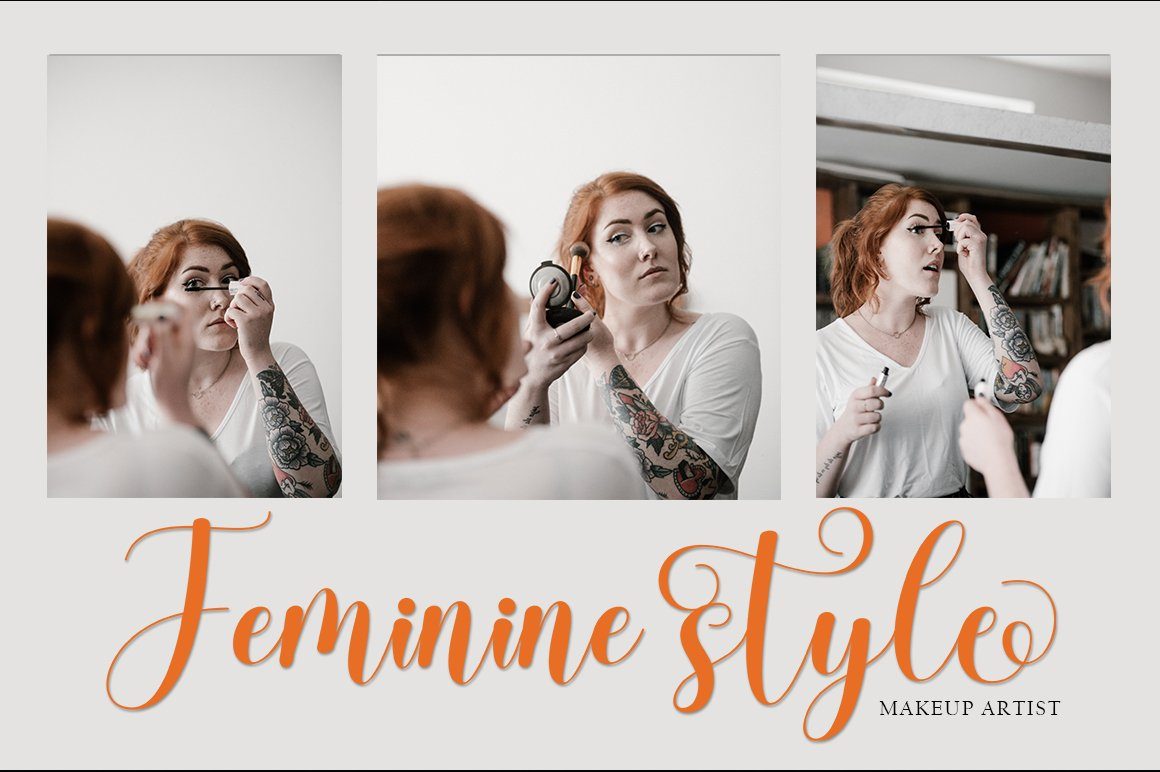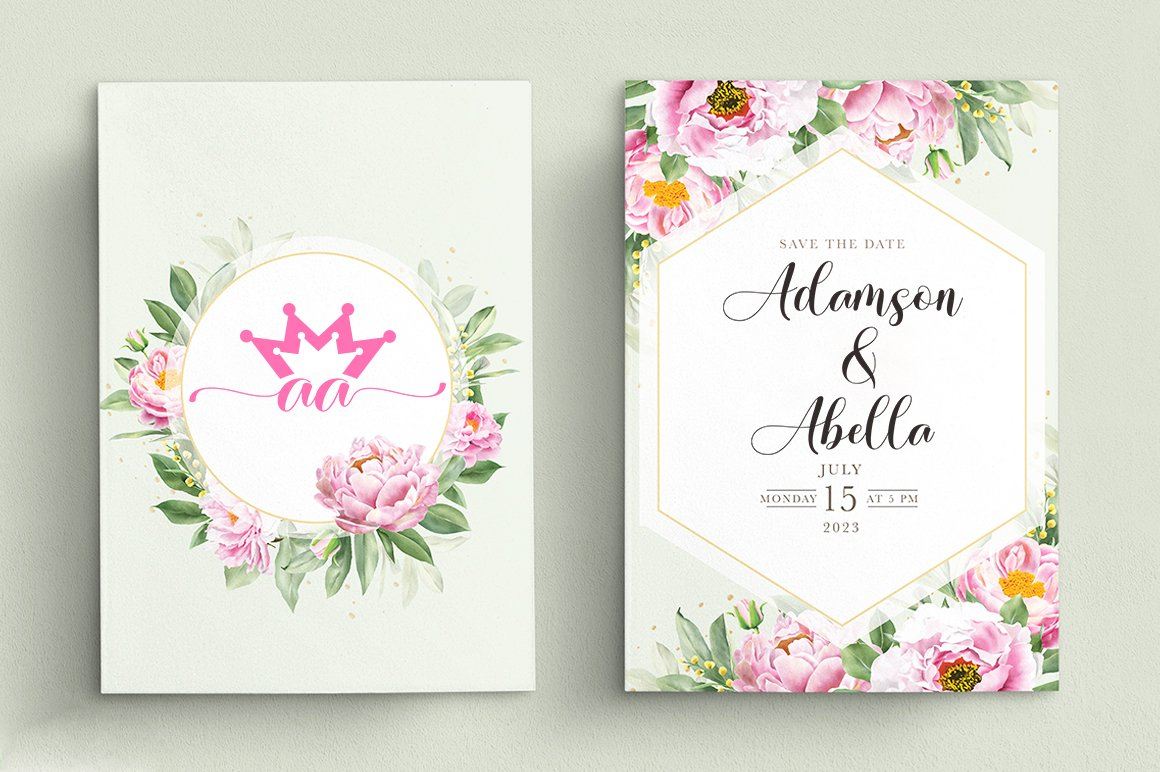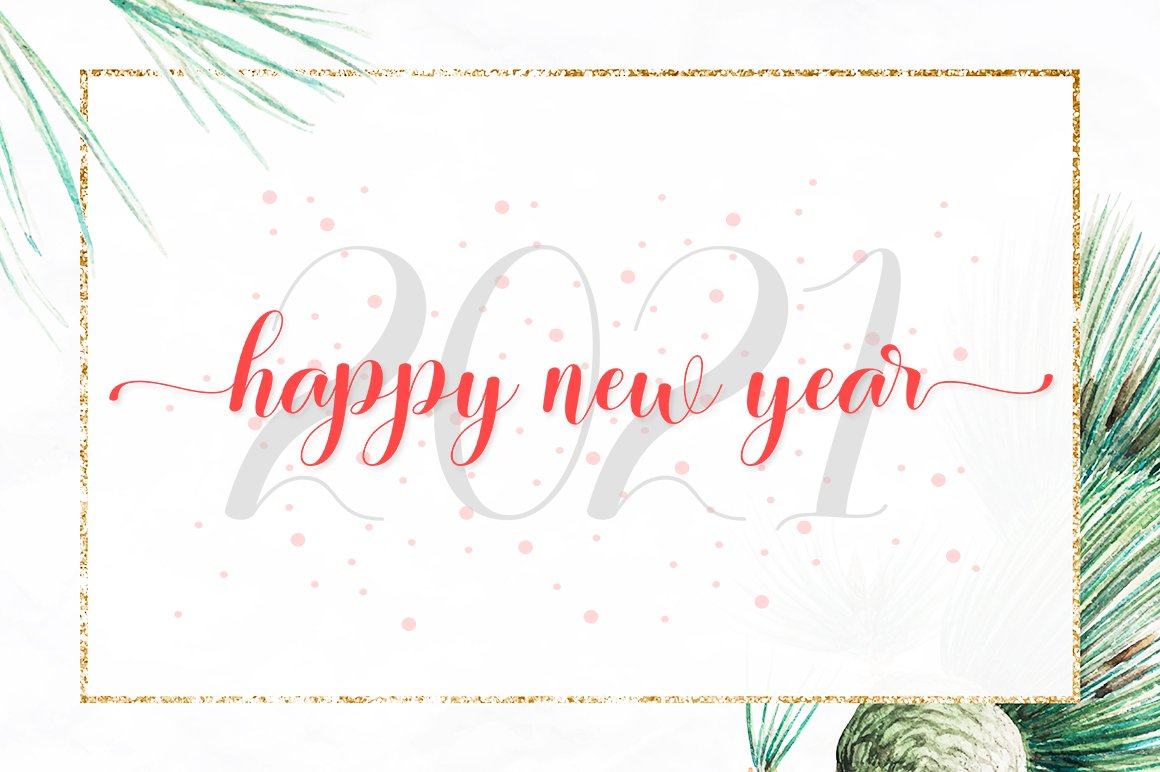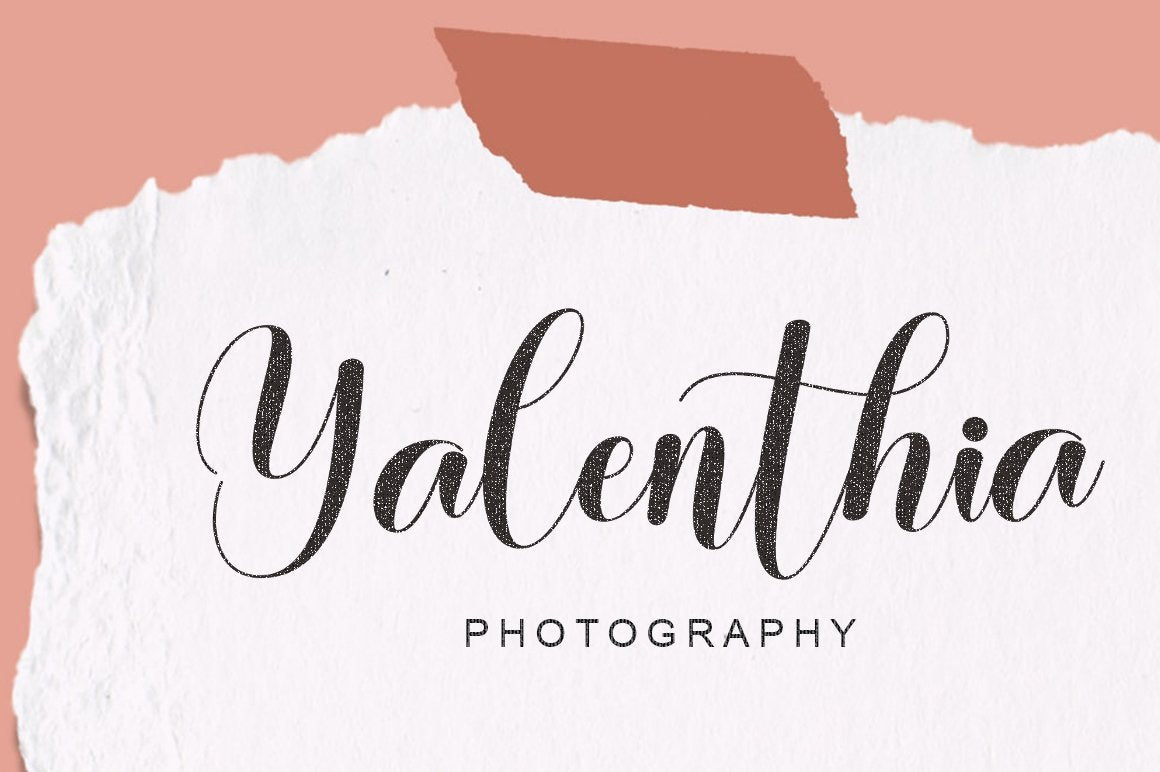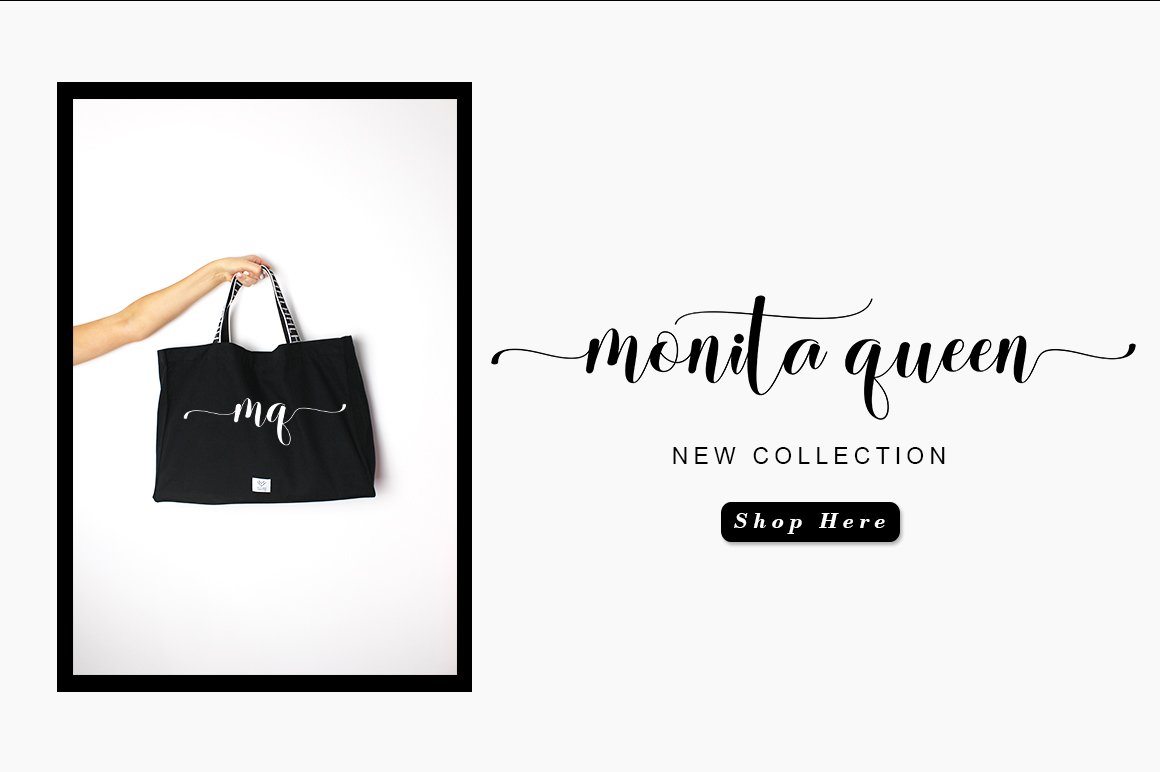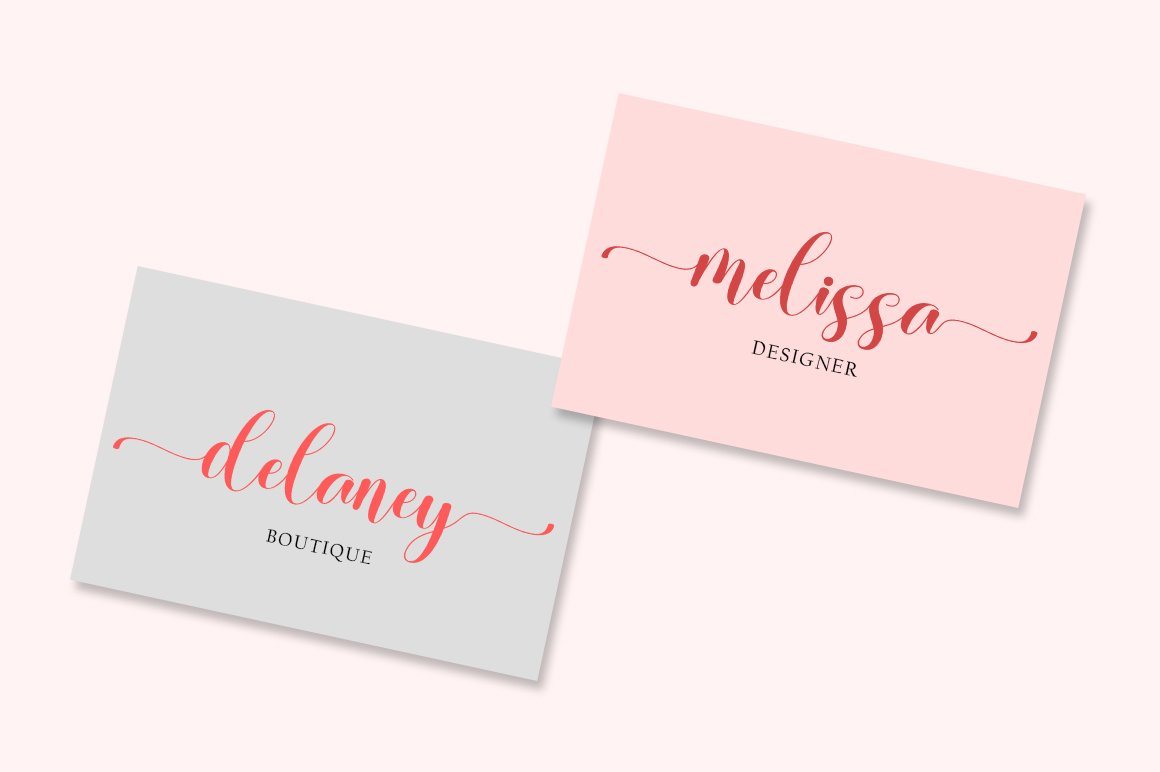
About Authentic Sheldon
Authentic Sheldon is beautiful and lovely script font with many alternative styles, ligatures, swash and multilingual glyphs. Authentic Sheldon can be used for wide ranges of application, such as wedding design, logo, poster, name card, invitations, social media posts, and others. Files include: Authentic Sheldon Script.OTF Authentic Sheldon Script.TTF + PUA-Encoded + Can be used in any software, like Adobe Photoshop, Illustrator, even Microsoft Word, PowerPoint and others. + Multilingual glyphs.